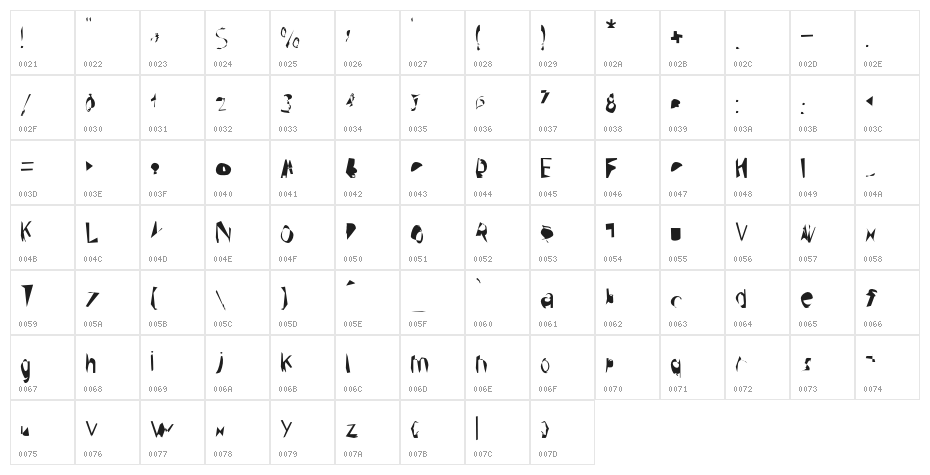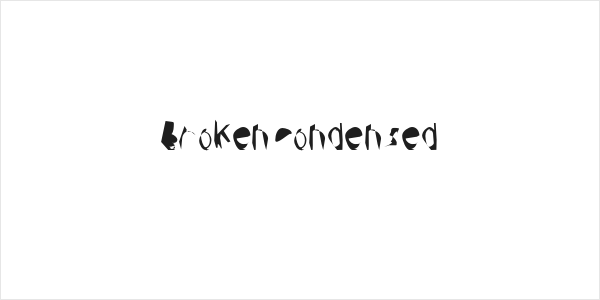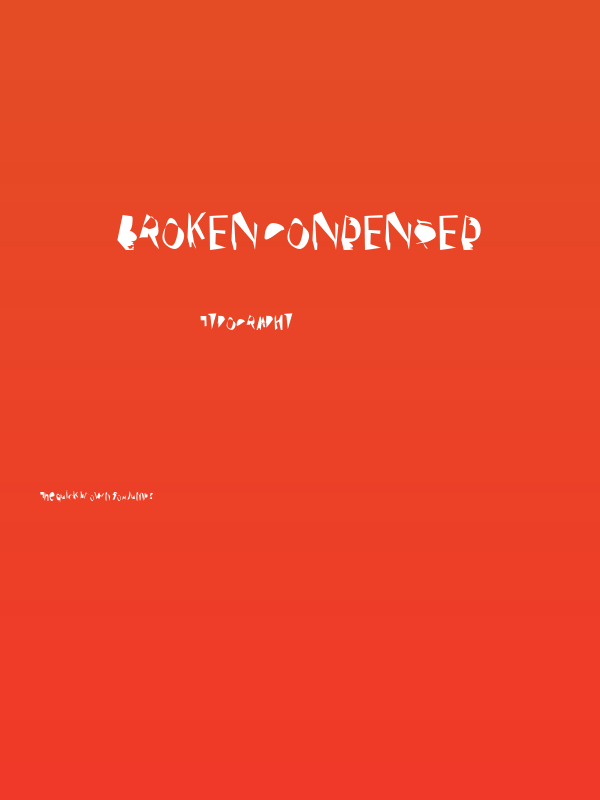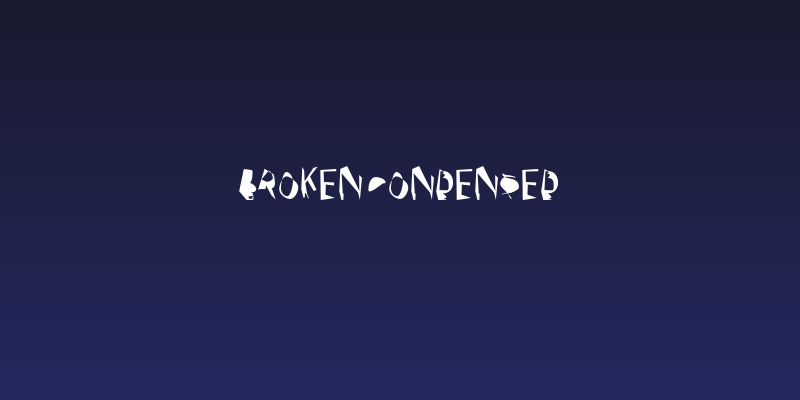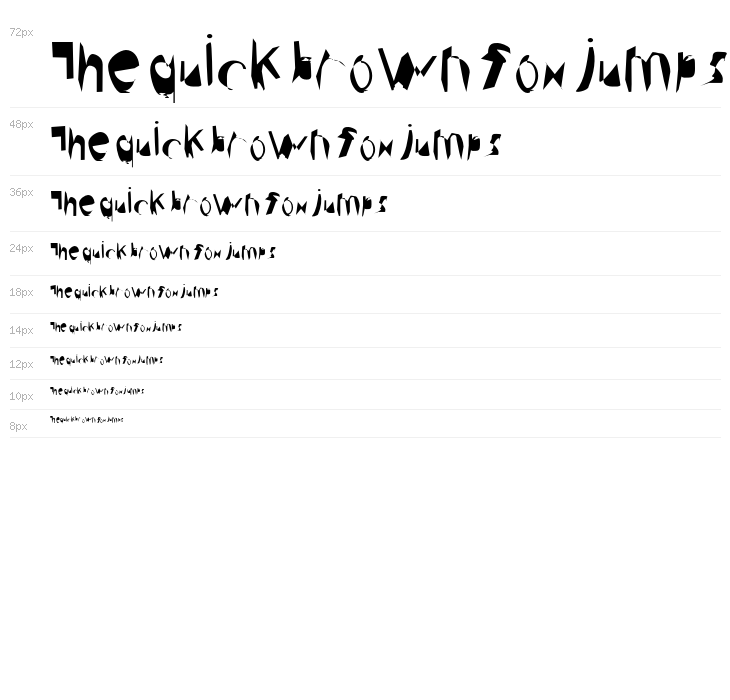
Broken Condensed Font
✎ Distorted Eroded
| Stile generale | Modern, Edgy |
| Caso d'uso | Headlines, Logos, Artistic Designs |
| Progetti proposti | Ideal for edgy posters, album covers, avant-garde branding, and artistic projects that require a unique and striking visual impact. |